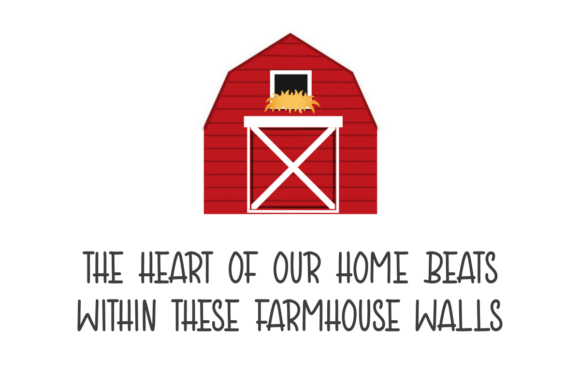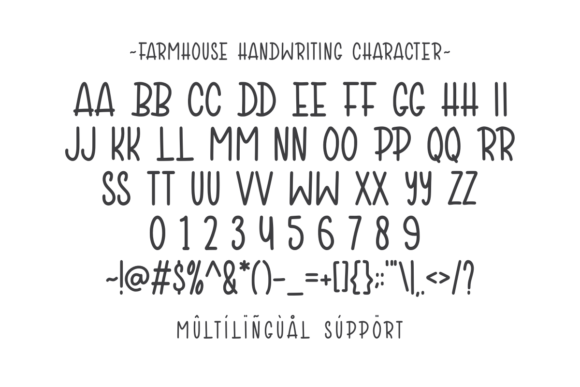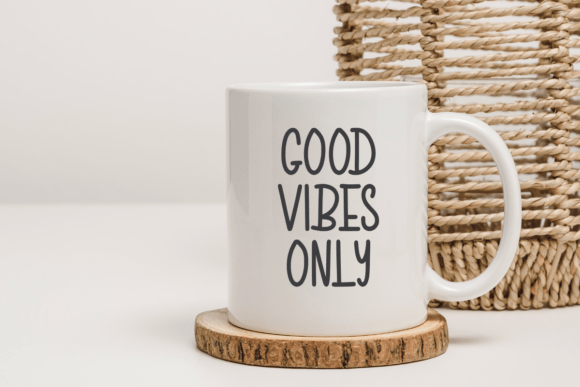
Farmhouse Handwriting Font
Farmhouse Handwriting is a cute and playful handwriting font, perfect for planners, stickers, cards, quotes, and craft projects. Ideal for creative moms who love DIY, journaling, and Cricut crafts!